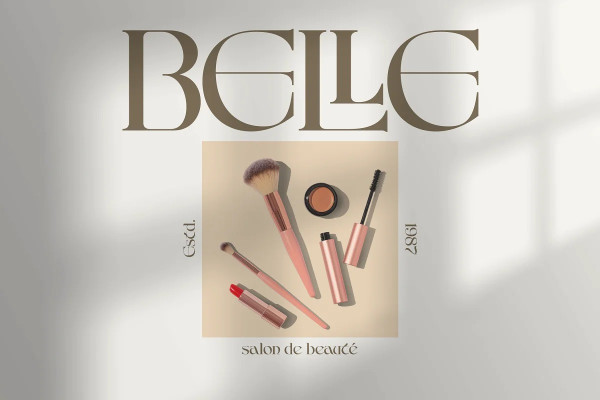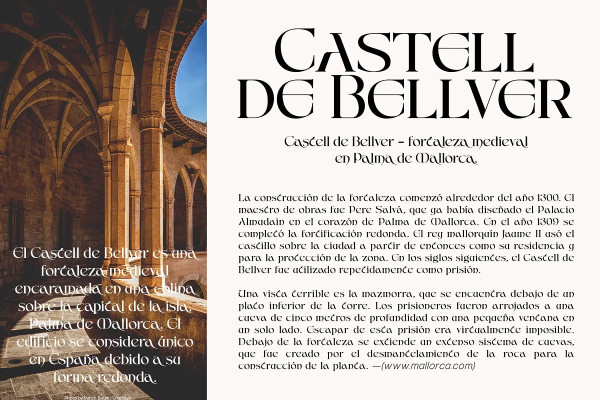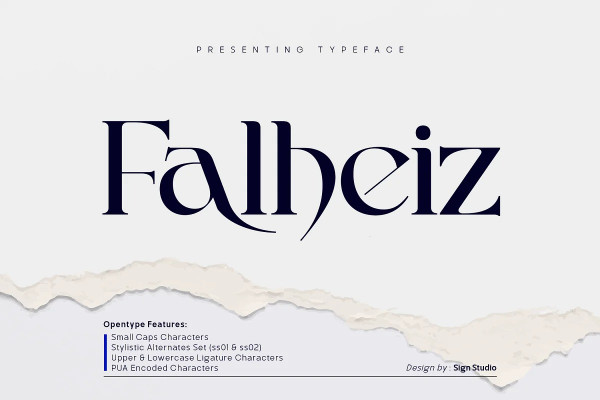
Falheiz Font
Falheiz Font is a stylish font that can bring classic memorial nuance. It’s a mix between a classic serif and copperplate style. Falheiz comes with a full uppercase, lowercase, numbers, punctuation, ligatures and also some alternates. This font is perfect for poster, fashion magazine, branding or logotype design and displays both masculine and feminine qualities. All character are PUA encoded.